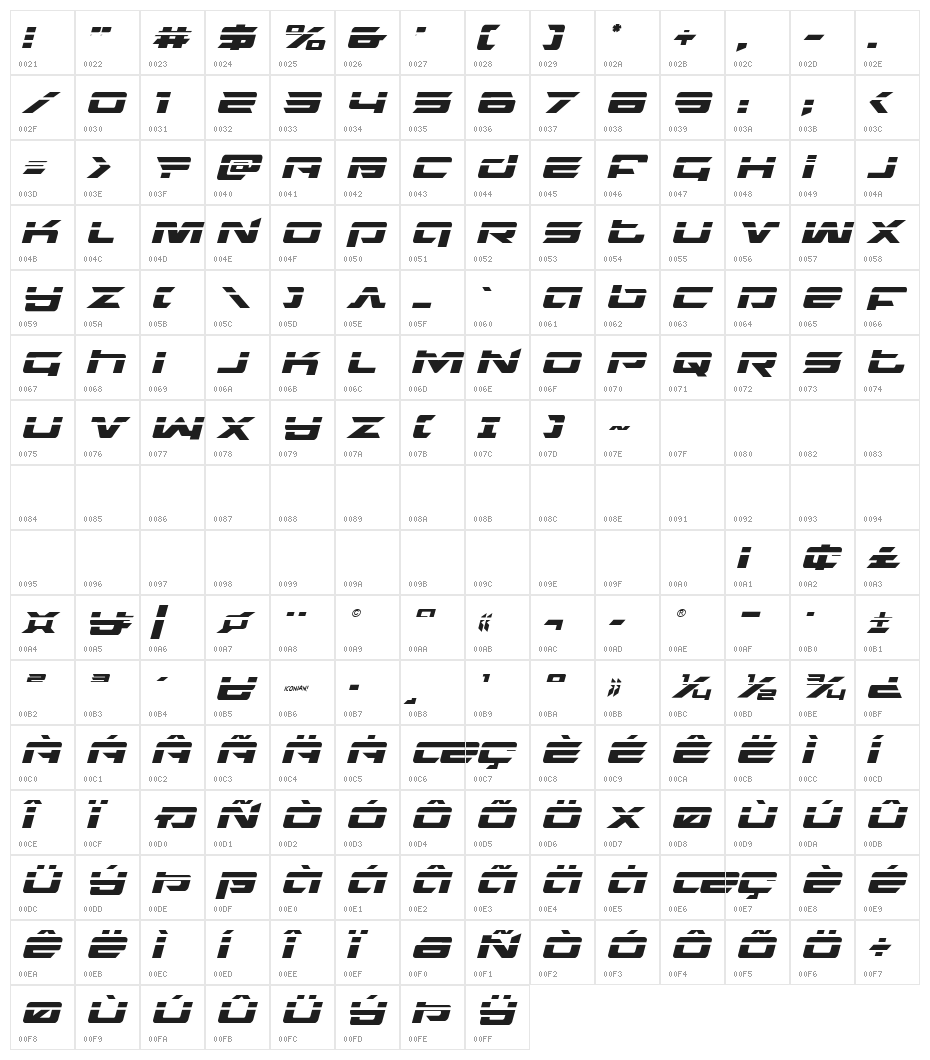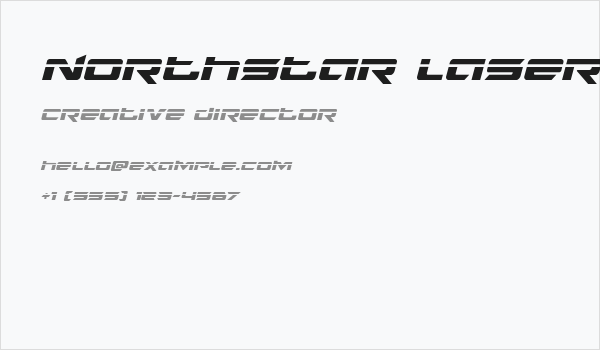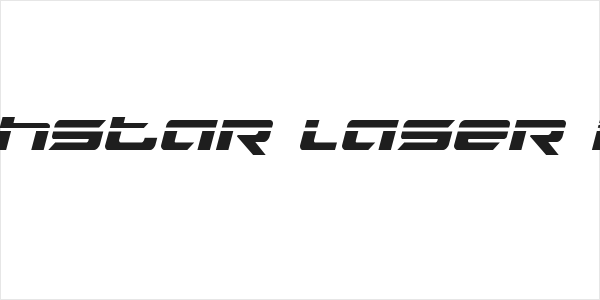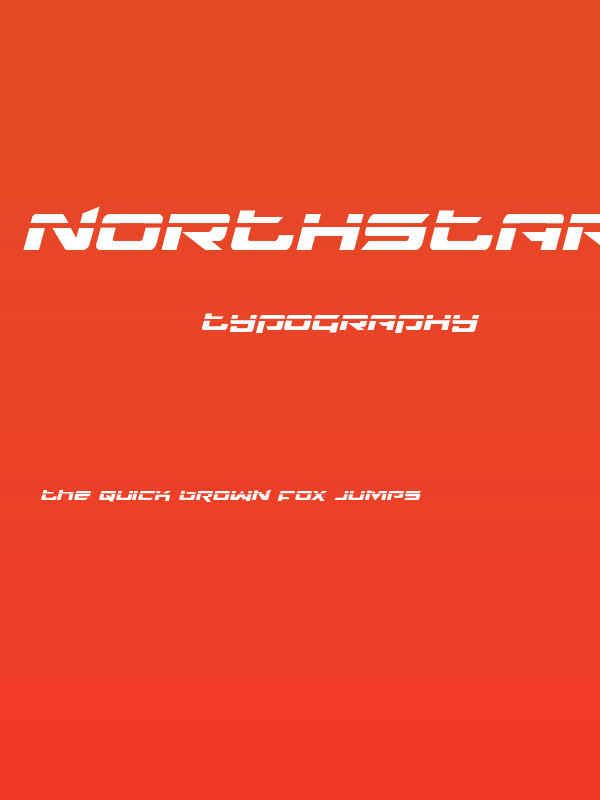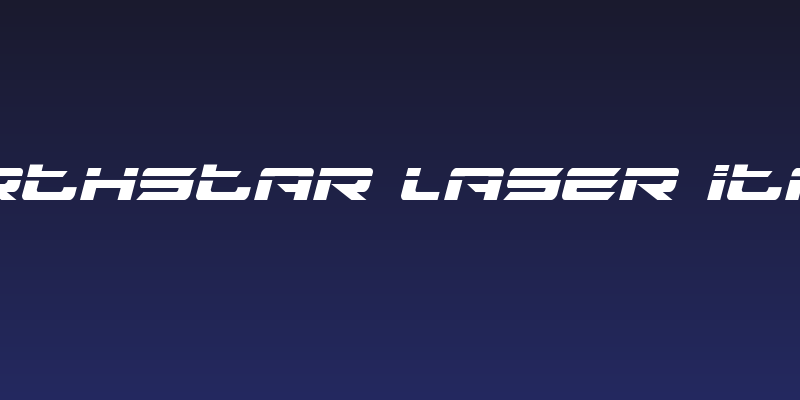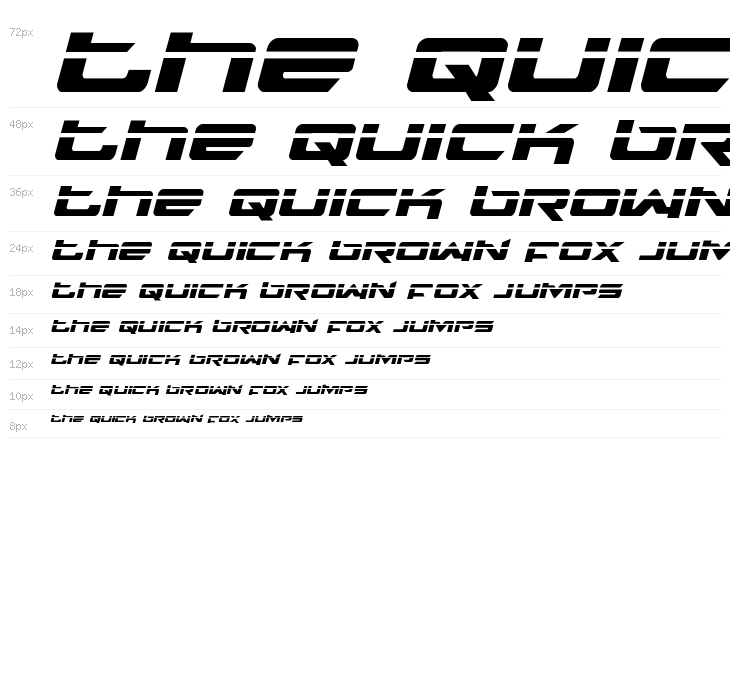
Northstar Laser Italic Font
Northstar Laser Italic Description
This font features a futuristic and dynamic design, characterized by its sharp angles and italicized stance. The letters are bold and have a distinct geometric style, with cut-out sections that add a sense of movement and speed. The uppercase and lowercase letters maintain a consistent style, enhancing the font's cohesive appearance. Numbers and special characters are designed with the same angular and modern aesthetic, making them suitable for a variety of digital and print applications. The font's unique style is ideal for projects that require a modern and edgy look.